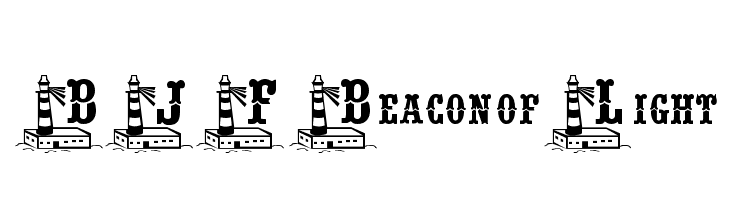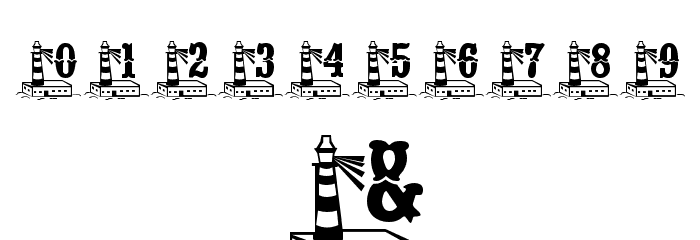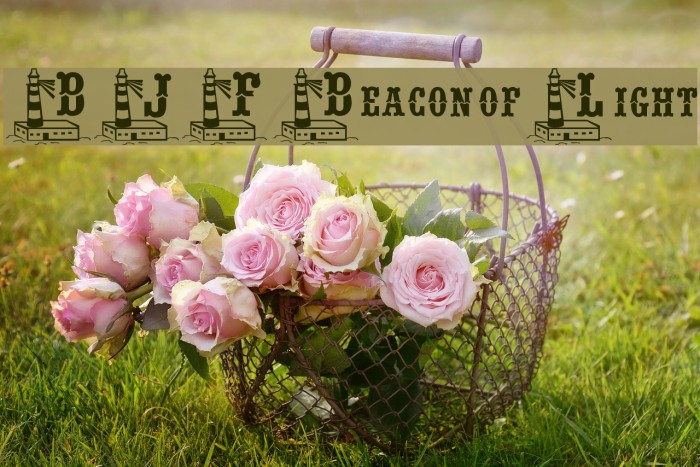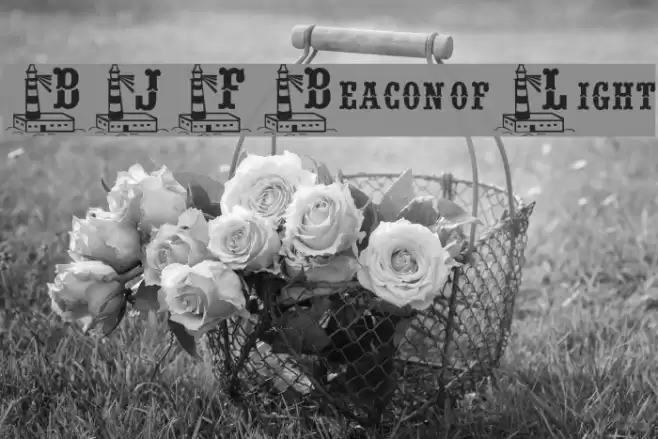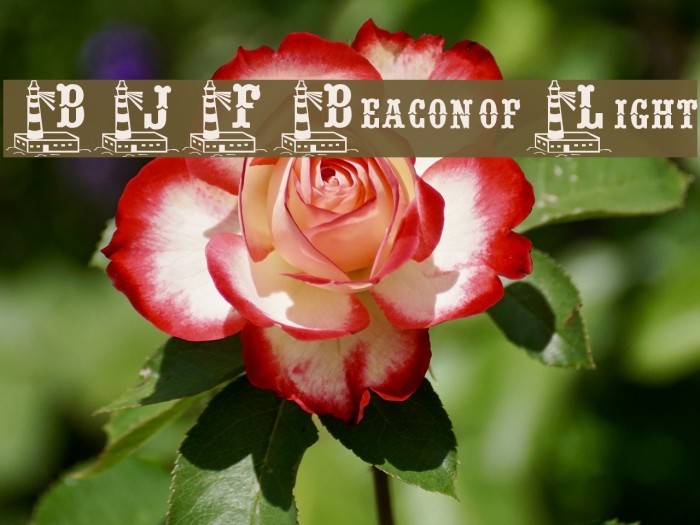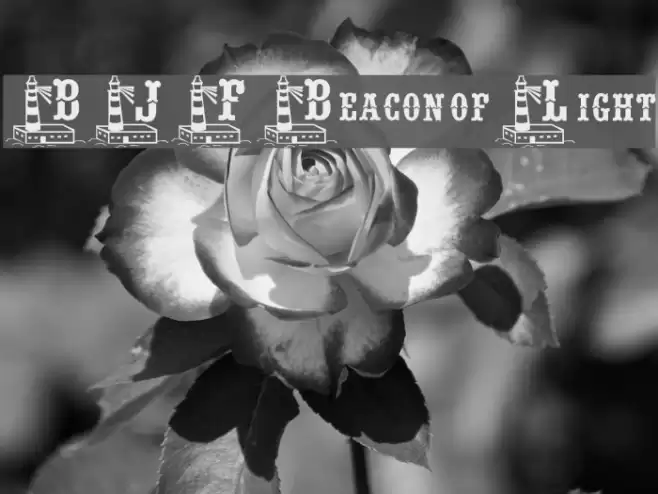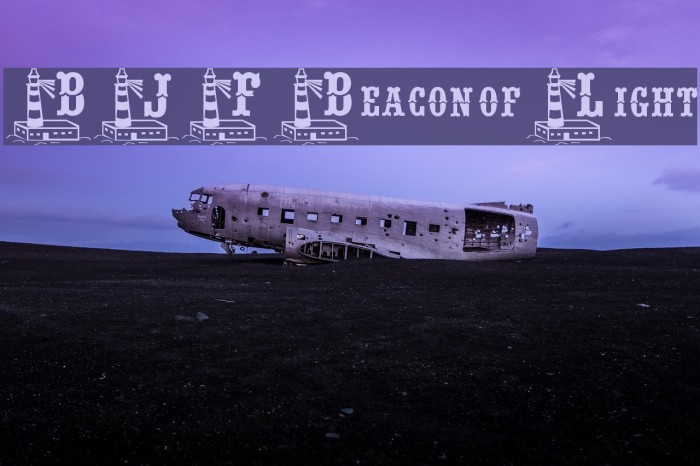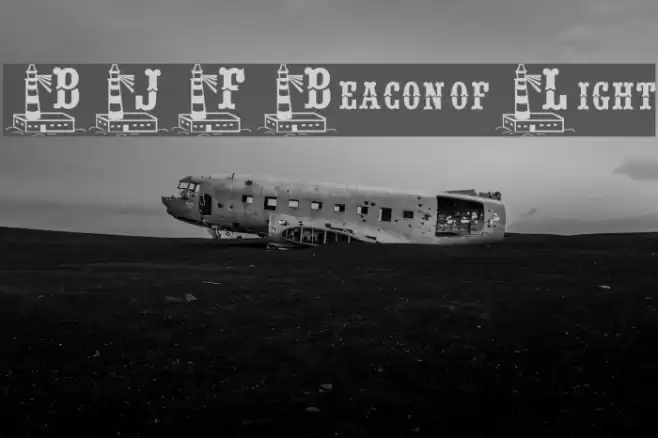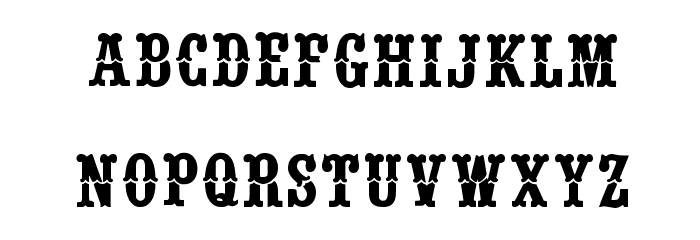
BJF Beacon of Light Font
BJF Beacon of Light Description
This font features a unique and decorative style that incorporates lighthouse motifs into each character, creating a nautical theme. The uppercase letters are bold and prominent, with intricate details that resemble the structure of a lighthouse. The numbers and special characters also carry this theme, making the font highly distinctive and thematic. The overall design is playful yet structured, making it suitable for creative projects that require a strong visual impact. The characters are evenly spaced, ensuring readability while maintaining the decorative elements.
A decorative font with lighthouse-themed characters, ideal for nautical designs from Uncategorized fonts.
- Proposed Projects: Perfect for maritime-themed posters, children's books, event invitations, and branding for coastal businesses.